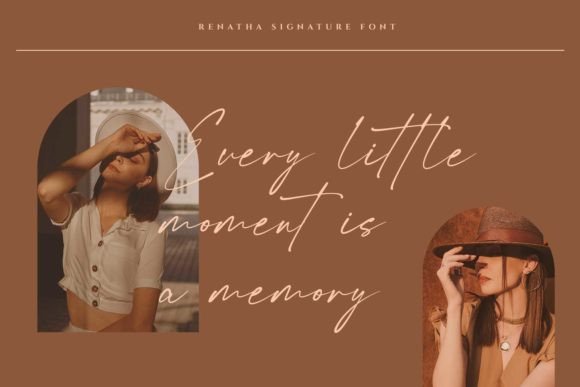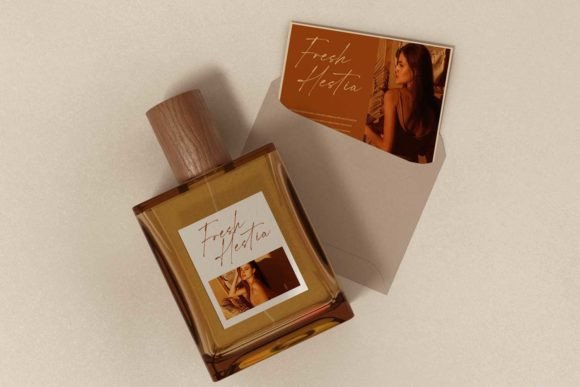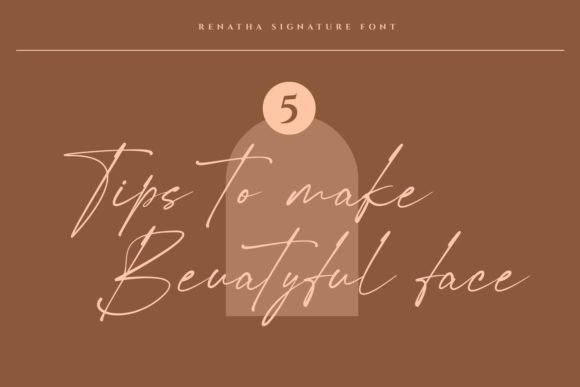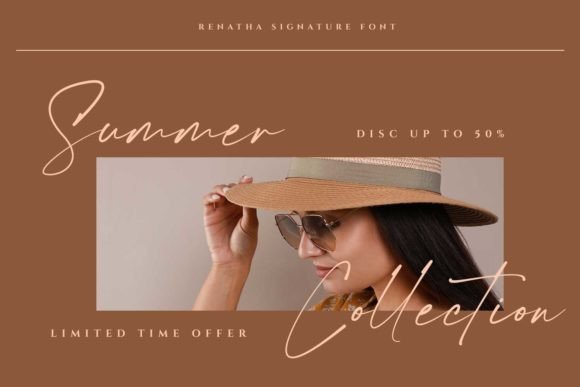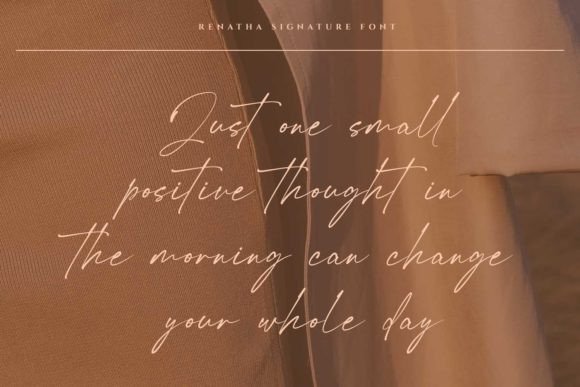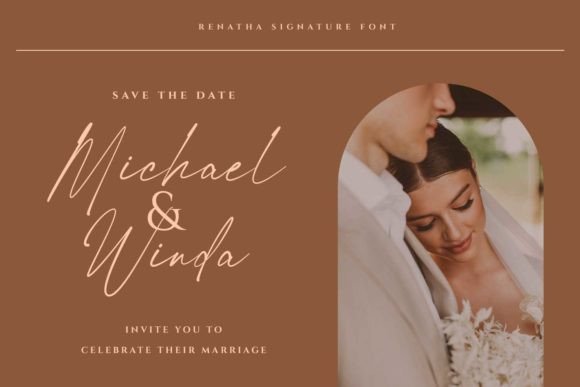
Introduction to Renatha Signature Font
Renatha Signature is a delicate and graceful script font that embodies elegance and sophistication.
Its flowing and fluid letterforms evoke a sense of beauty and refinement Perfect for luxurious branding, wedding invitations, and feminine designs, Renatha Signature adds a touch of glamour and charm.